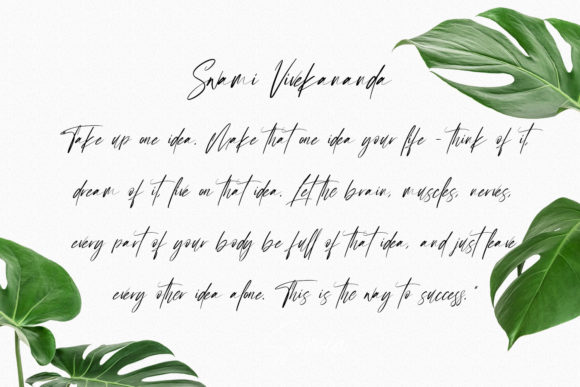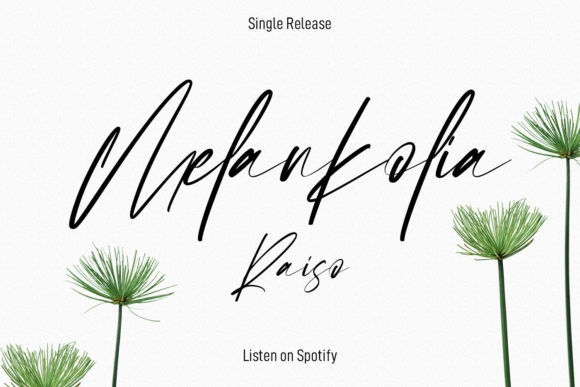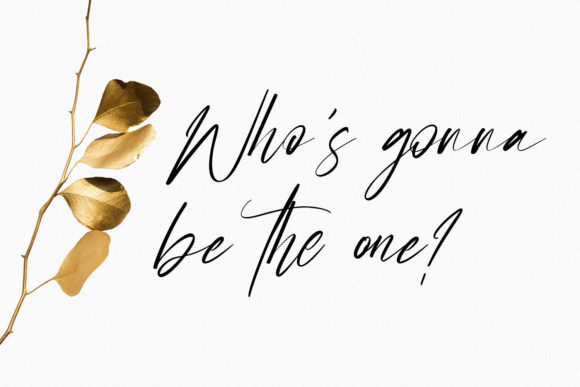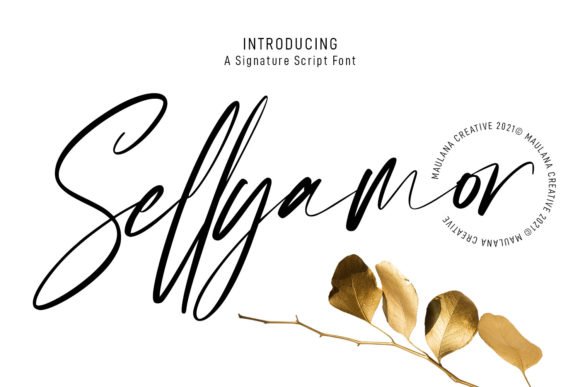
Introduction to Sellyamor Script Font
Sellyamor Script is an enchanting handwritten font.
This versatile script font has a wide spectrum of applications ranging from greeting cards to headlines Sellyamor Script is PUA encoded which means you can access all of the glyphs and swashes with ease.